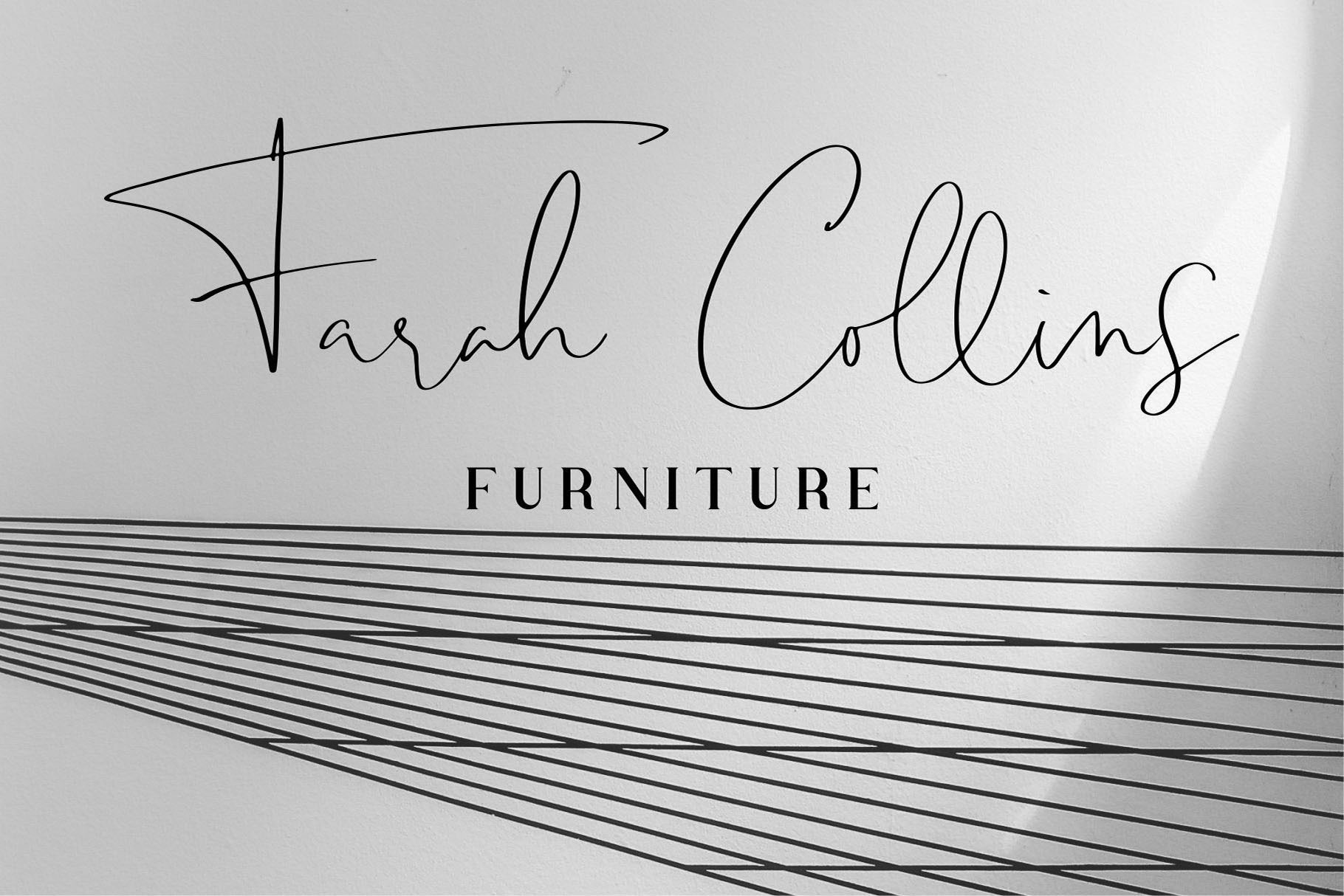
Kastangel - Script
We present new font products. this time with a touch of hands that is so elegant and classic, this Kastangel font is suitable for your design needs. If you are interested ... You can download the file immediately. This font to make it look very attractive, equipped with 70 ligature.
- Containing upper & lowercase characters, full set of punctuation and numerals, with opentype features with stylistic alternates and ligatures.
- An broader version of the font for a Kastangel Script different feel.